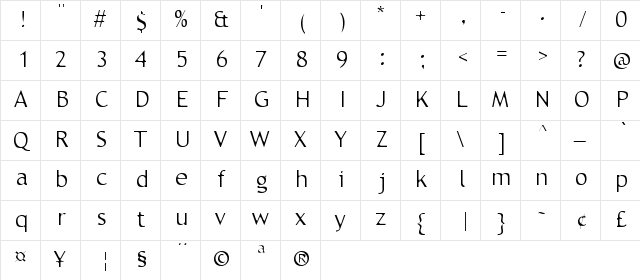
Trebble Regular
Design Context for Trebble Typeface
Trebble takes a measured approach to typography — its balanced proportions and neutral character make it a reliable workhorse for both digital and print work.
Pro Tip: Pair Trebble with a font of contrasting weight or personality to build a more expressive typographic hierarchy.